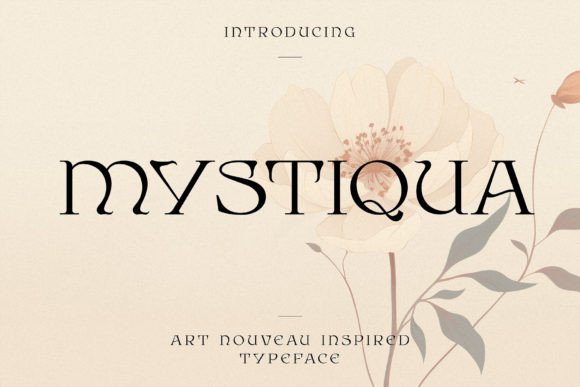
Introducing Mystiqua, the transcendent journey into the age of Art Nouveau that will leave you breathless. This exquisite serif font, created by the talented team at HipFonts, is the epitome of elegance and ethereal beauty.
Inspired by the undulating lines and organic forms of the Art Nouveau era, Mystiqua brings sophistication and natural charm to every project. Each character is a poetic dance between delicacy and ornateness, a true masterpiece of design.
Imagine the flowing curves of this typeface, reminiscent of architectural wonders and stained glass masterpieces. Picture the intricate jewelry of a bygone era, with Mystiqua's botanical motifs and sinuous curves.
But Mystiqua is more than just a font; it's a visual sonnet. It adds a touch of vintage luxury and otherworldly charm to any branding project, intricate design composition, or invitation. It captures the magic of an era that celebrated the perfect harmony between art and nature.
With Mystiqua, your designs will be infused with the spirit of Art Nouveau, creating a captivating experience for your audience. Every word penned using this font becomes an ode to beauty, romance, and timeless elegance.